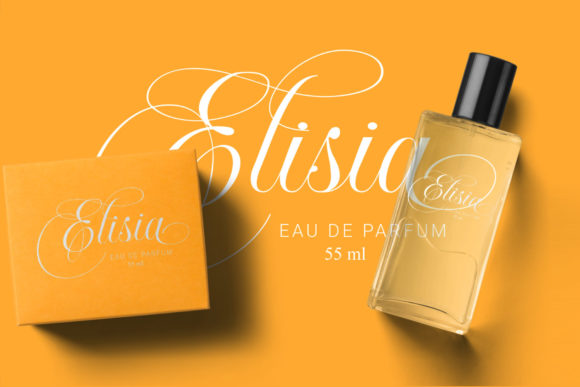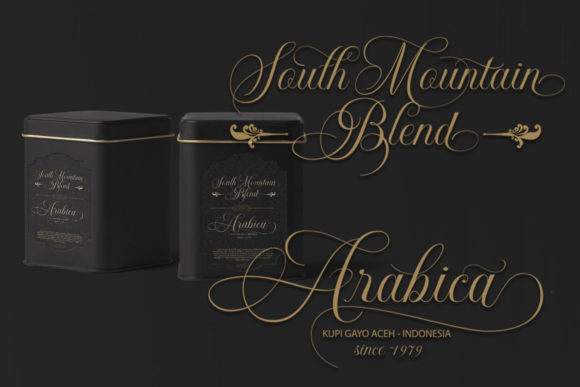
Khatija Font
db-ku.com - Script & Handwritten -- Khatija is a bold and beautiful calligraphy font with an undeniably modern look. It has a eclectic feel and will add a unique touch to any design idea.